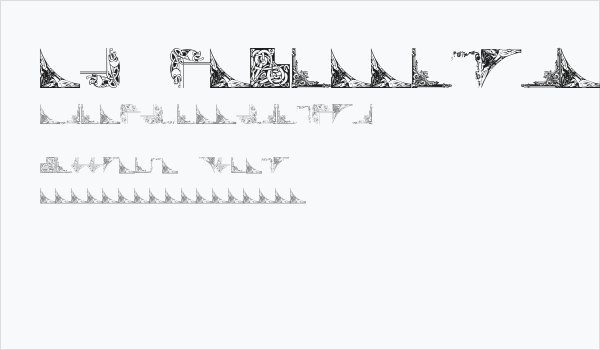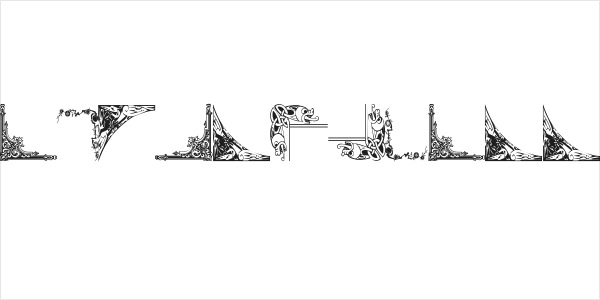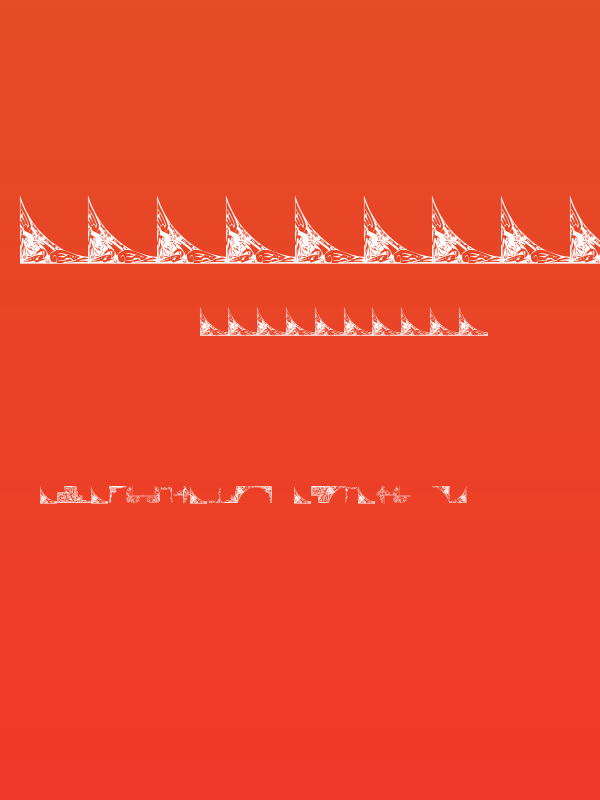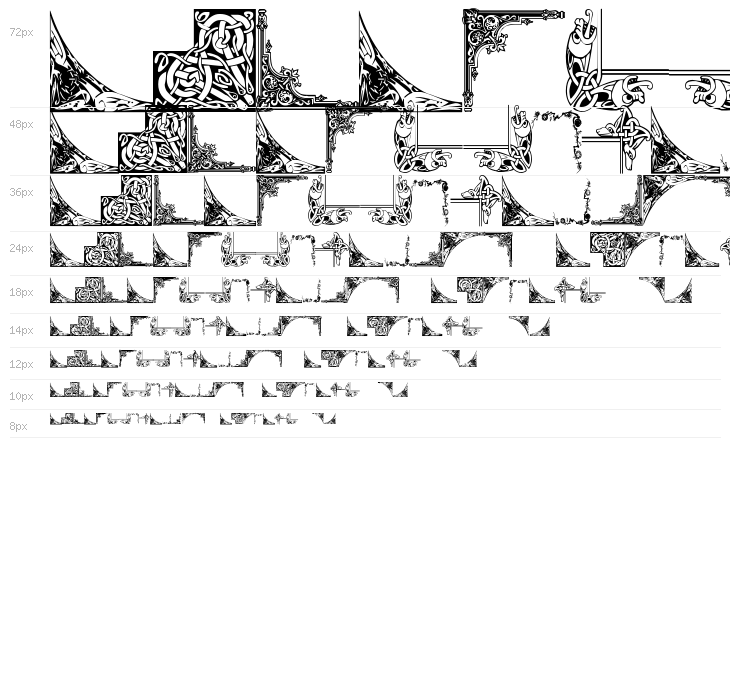
Vintage Decorative Corners 15 Font
Vintage Decorative Corners 15 Description
Highly ornamental and intricate decorative corner elements featuring swirling, vintage-inspired patterns and flourishes, designed for use as borders or embellishments rather than standard alphanumeric characters.
| Overall Style | Vintage, Decorative |
| Use Case | Borders, Frames, Decorative accents |
| Proposed Projects | Invitations, certificates, book covers, vintage posters, decorative frames, scrapbooking. |